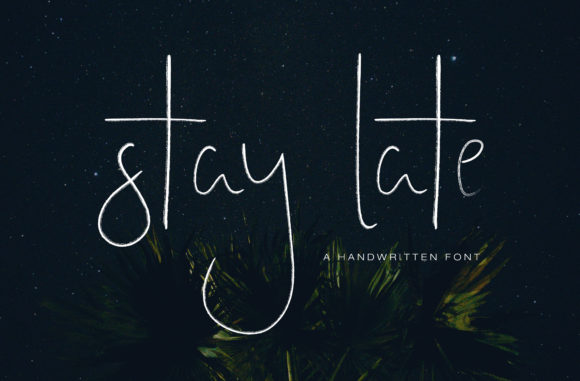
Stay Late Font
Dive into the enchanting world of Stay Late Font, a script font family crafted with passion by Christine Teixeira. Get ready to captivate your audience with this dreamy font's painted texture and graceful lines that effortlessly add a touch of personalized elegance to your creative projects.
Stay Late Font is an artistic masterpiece that embodies the essence of timeless beauty and contemporary charm. Its handwritten signature style exudes a sense of authenticity and warmth, inviting you to pour your heart and soul into every word you write. Whether you're a seasoned designer or just starting your creative journey, Stay Late Font will elevate your designs to new heights of visual excellence.
With Stay Late Font, you'll discover a font family that goes beyond mere aesthetics. It's a powerful storytelling tool that allows you to convey emotions and evoke a sense of wonder in your audience. Let your words dance across the page with Stay Late Font's enchanting curves and delicate strokes, leaving an indelible mark on the hearts of those who read your creations.
Unleash your creativity and explore the endless possibilities that await you with Stay Late Font. Create stunning logos, eye-catching social media posts, heartfelt invitations, and captivating branding materials that will leave a lasting impression. The possibilities are limitless with this versatile font family at your disposal.
Don't settle for ordinary fonts that blend into the background. Choose Stay Late Font and embark on an extraordinary journey of self-expression and artistic fulfillment. Immerse yourself in the magic of this font's enchanting allure and watch as your creative visions come to life with breathtaking beauty and elegance.